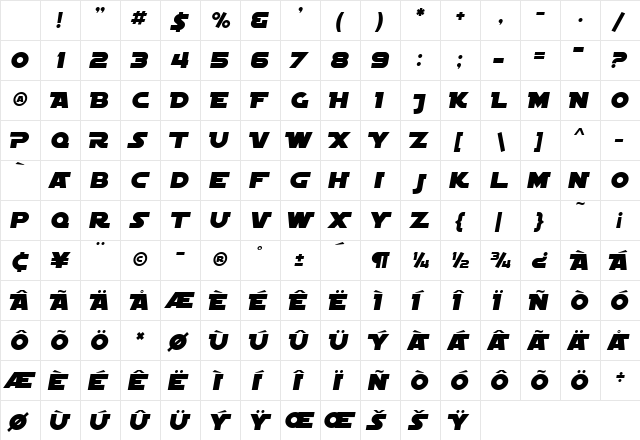
SF Distant Galaxy Alternate Italic Free Font
SF Distant Galaxy Alternate Italic
Design Context for SF Distant Galaxy Alternate
SF Distant Galaxy Alternate is a composed and adaptable typeface that performs quietly and consistently across a wide range of design contexts. The slanted form adds forward momentum and visual energy.
Pro Tip: Use SF Distant Galaxy Alternate for emphasis, pull quotes, and subheadings where its slanted energy can add rhythm to the layout.